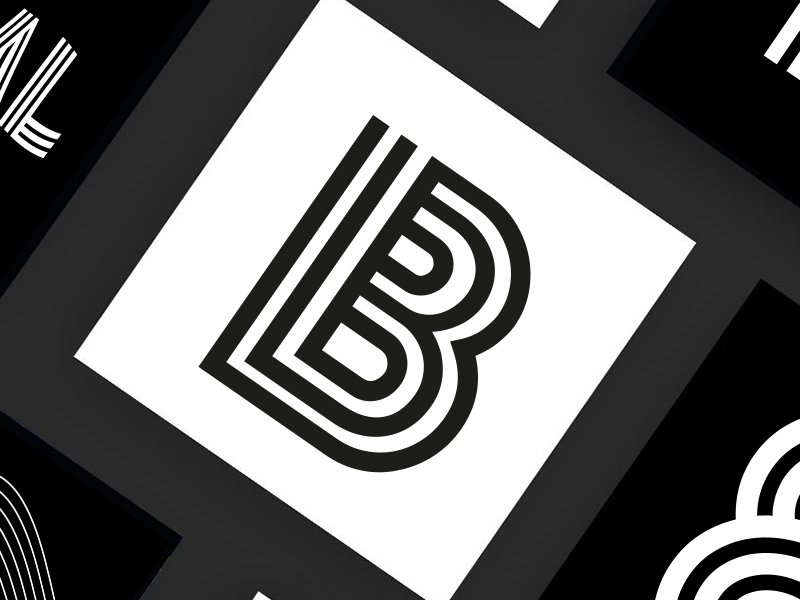
The Social ™ font (free)
The Social ™ font (free) Is an all CAPS font , it was designed bearing in mind the growing influence of kinetic design, this font boils down to A to Z and 0 to 9 glyphs. Hope you enjoy it as it will be free for you to use both personal and commercially. ;)